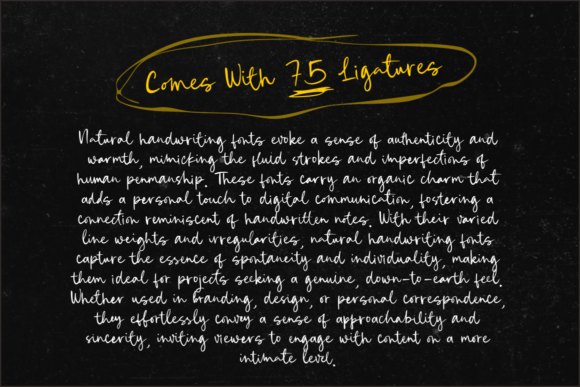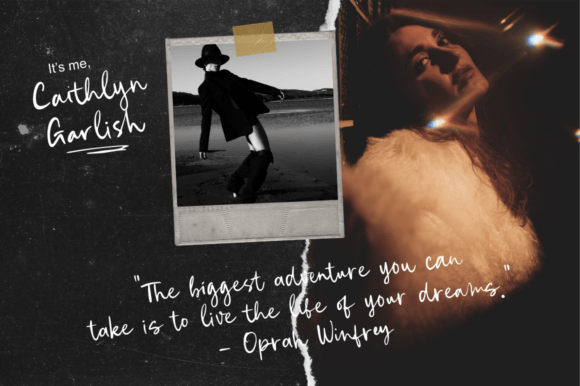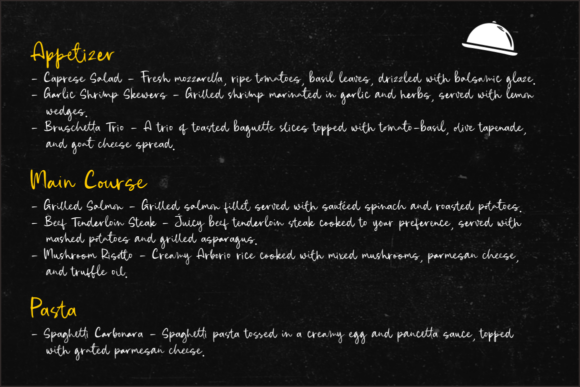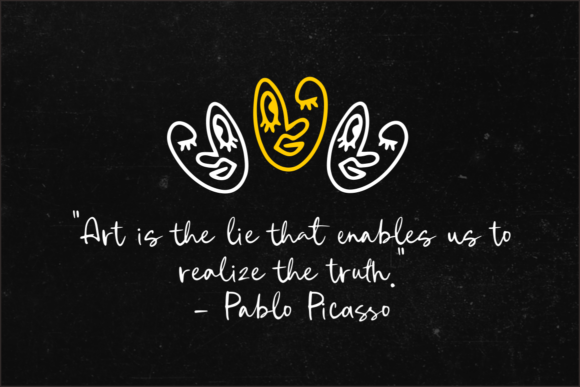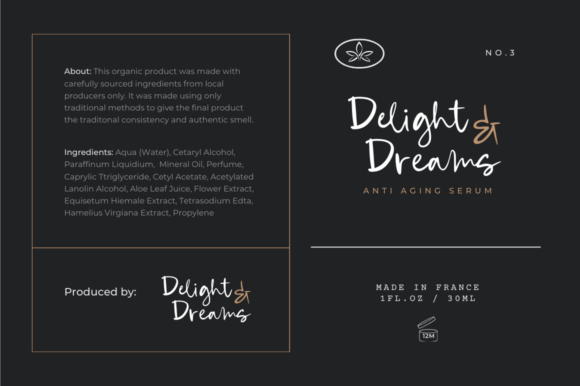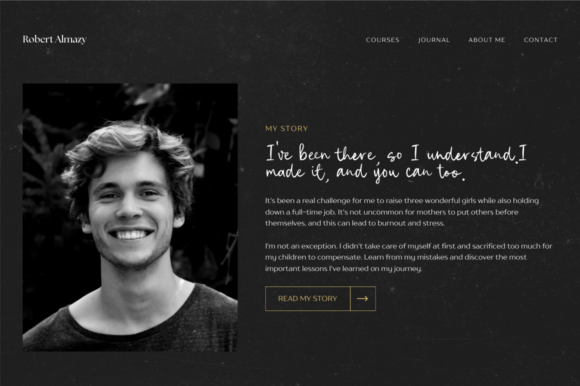
The Quest for the Perfect Handwritten Font
I’ll never forget the time I was working on a project for a client who wanted a personal and authentic touch. I had spent hours browsing through font libraries, but nothing seemed quite right. That was until I stumbled upon “Authora Handwriting”. This captivating script font instantly caught my attention with its natural flow and intricate ligatures, perfectly emulating authentic handwriting. In this article, I’ll share my experience with “Authora Handwriting”, its features, and how to make the most of it in your designs.
What Makes Authora Handwriting Special?
“Authora Handwriting” is meticulously crafted to bring a touch of genuine handwritten elegance to your projects. Its unique charm and character make it perfect for projects that demand a personal touch and authenticity, such as invitations, branding, or editorial designs.
Here’s what I love about “Authora Handwriting”:
- ✨ Natural flow and authentic handwriting feel
- ✅ Intricate ligatures for added elegance
- 💫 Perfect for projects requiring a personal touch
- 🎨 Highly versatile for various design applications
While “Authora Handwriting” is exceptional, there are a few minor quirks to consider:
- 🤔 Some letters may require manual kerning for optimal spacing
- ⚠️ Limited availability of certain diacritical marks
The Story Behind Authora Handwriting
The inspiration behind “Authora Handwriting” comes from the desire to create a font that captures the essence of genuine handwritten text. The designer aimed to craft a font that would add a personal touch to digital and print projects, making them stand out with a unique charm and character.
| Font Name | Authora Handwriting Font |
| Author | Sronstudio |
| What makes Authora Handwriting unique? | “Authora Handwriting” is unique due to its natural flow and intricate ligatures, which emulate authentic handwriting. |
| Is Authora Handwriting suitable for body text? | While “Authora Handwriting” is beautiful, it’s best suited for headings, titles, and short paragraphs due to its script nature. |